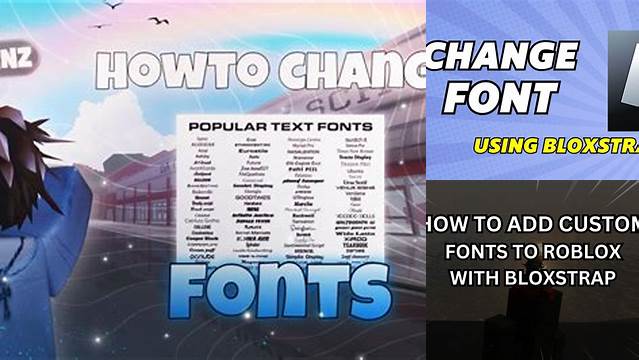
Change Roblox Fonts With Bloxstrap: A Complete Guide
Hey, Roblox enthusiasts! Ever wished you could spice up your Roblox experience with some custom fonts? Well, guess what? It's totally doable, and it's easier than you might think, thanks to a nifty tool called Bloxstrap. Bloxstrap isn't just about fonts; it's a whole suite of enhancements for your Roblox client. But let's be real, the font customization is a major draw for a lot of us. In this guide, we'll walk through how to change Roblox fonts with Bloxstrap, step by step, so you can get your game looking exactly how you want it. This is the ultimate guide to make your Roblox experience stand out from the crowd. Get ready to transform your game with personalized font styles! This customization tool provides a fantastic method to change the appearance of text within the game, offering a more personalized and enjoyable experience. We will explore the ins and outs of using Bloxstrap and how to select and apply fonts that best suit your preferences. This process involves understanding the Bloxstrap software, which will allow you to modify the game's interface to a great extent. We'll cover everything from downloading and installing Bloxstrap to choosing and implementing your favorite fonts. Whether you're a seasoned player looking to refresh your game's look or a newcomer eager to personalize your experience, this guide has got you covered. So, let's dive in and make your Roblox games truly your own!
Understanding Bloxstrap's Interface: Navigating the Font Settings
Now that Bloxstrap is installed, let's get familiar with its interface. When you open Bloxstrap, you'll be greeted with a user-friendly interface designed to make customization easy. The interface is generally divided into several sections, each dedicated to different aspects of Roblox modification. The most important section for our purposes is the one related to font customization. Look for settings related to "Fonts" or "UI Customization." This section allows you to select and apply different fonts to various elements within the game. You'll likely find options for changing fonts for chat messages, game interfaces, and other text elements. Usually, the interface is straightforward, with dropdown menus or text fields where you can specify the font you want to use. Bloxstrap often provides a preview feature, allowing you to see how the selected font will look in the game before applying it. This is a huge help in ensuring that you choose a font that you like. You will also have options to specify where the fonts will be applied, such as specific parts of the game UI or text elements. If you have used other customization tools before, the interface will likely feel intuitive. Bloxstrap's designers have made an effort to create an easy-to-navigate platform. Once you get used to the layout, changing the fonts in your Roblox game will become second nature. The interface is regularly updated to stay current with Roblox updates, ensuring compatibility and a smooth user experience. Make sure to explore all the different options and settings within the Bloxstrap interface. This will enable you to make full use of its capabilities. It is a great way to personalize your gaming experience beyond just changing fonts. The Bloxstrap interface is your control center for all things customization, and will enable you to make your game a true reflection of your personal style.
Selecting Your Fonts: Where to Find the Perfect Font
Applying Your Chosen Fonts: Integrating Fonts into Bloxstrap
Alright, you've got your fonts, and now it's time to put them to work in your Roblox game. This part is a breeze with Bloxstrap. Open Bloxstrap, and navigate to the font settings. This is usually found within the "UI Customization" or "Fonts" section. You will typically see options to select different fonts for various parts of the game. To apply your custom font, you'll usually need to specify the location of the font file. Click the option to browse for the font files and select the .ttf or .otf file you downloaded earlier. Bloxstrap should be able to automatically recognize the font. Some Bloxstrap versions allow you to directly upload font files, while others may require you to point to the system font folders. Make sure you choose the correct one. After selecting your font, you might need to specify where you want it applied. This could include chat bubbles, menus, or other UI elements. Bloxstrap often provides a preview feature, allowing you to see how the font will look in the game before you apply it. Take advantage of this feature to ensure that your font looks good and is readable. Once you've selected your fonts and confirmed your settings, apply the changes. Then, launch your Roblox game through Bloxstrap. The fonts you selected should now be visible in the game, replacing the default fonts. If the fonts don't appear immediately, try restarting your Roblox client or the Bloxstrap application. Sometimes, a simple restart is all it takes. If you're having trouble, double-check that you correctly specified the font file and that it is located in the correct directory. By carefully applying your fonts, you ensure that the changes are integrated seamlessly into the game's interface. Enjoy the new look of your game, and don't be afraid to experiment with different fonts to achieve the perfect aesthetic. Customizing fonts is a great way to make your game feel like your own!
Troubleshooting Font Issues: Resolving Font Display Problems
So, you've installed Bloxstrap, selected your fonts, and applied them, but the game isn't looking quite right? Don't worry, it's a common issue, and there are a few things you can check to get things working smoothly. First, make sure you've selected the correct font file. Double-check that you've chosen the .ttf or .otf file you downloaded and that it's the right font. Also, verify that you selected the correct font for the appropriate UI element. Sometimes, the wrong selection can prevent the font from appearing correctly. Another common problem is incorrect font paths. Make sure Bloxstrap is pointing to the correct directory where your font files are located. If the path is incorrect, Bloxstrap won't be able to find the font. Restarting the Roblox client and Bloxstrap is also a good first step. This can often resolve minor glitches that might be preventing the fonts from displaying properly. If you're still having trouble, check for any conflicting settings or other Roblox modifications that could be interfering with the font display. Sometimes, other plugins or modifications can conflict with Bloxstrap. Ensure that your Roblox client is up to date. Outdated versions can sometimes have compatibility issues with Bloxstrap. Make sure the Bloxstrap version is also current. Consider reinstalling Bloxstrap to resolve any potential corruption or installation issues. Also, clear the Roblox cache to ensure that old font data doesn't interfere with the new fonts. Check for any error messages in the Bloxstrap interface. These messages can sometimes provide valuable clues about what's going wrong. If you've tried all these steps and still can't get the fonts to work, you might want to seek help from the Bloxstrap community or forums. The community can provide additional troubleshooting tips. With some patience and troubleshooting, you can overcome any font display problems and get your Roblox game looking just the way you want it.
Advanced Customization: Beyond Basic Font Changes
Once you're comfortable with basic font changes, you can explore more advanced customization options with Bloxstrap. Beyond changing the fonts, Bloxstrap offers a range of features that let you personalize your Roblox experience even further. You can often modify the UI elements such as the game's interface, menu colors, and other visual aspects. This allows you to create a unique and cohesive look for your game. Bloxstrap typically lets you customize the game's sound effects and even add custom sounds. This adds another layer of personalization to your experience. Consider exploring advanced settings related to graphics and performance. You can often adjust settings to improve the game's visual quality and performance. Bloxstrap also supports various scripting functionalities, enabling you to modify the game's behavior and create custom features. Some advanced users create their own UI designs. These designs are tailored to their gaming preferences. Bloxstrap's flexibility allows users to integrate various modifications. These modifications range from simple visual tweaks to more complex game enhancements. If you're a more advanced user, consider creating and sharing your custom settings and configurations with the community. This can help other users and contribute to a more vibrant and creative environment. Explore the Bloxstrap documentation. This documentation contains in-depth explanations of the application's advanced features. Remember to always back up your Roblox settings. This will allow you to revert to a previous state if any issues arise. Bloxstrap's advanced customization features offer endless possibilities. By exploring these features, you can turn your Roblox game into a truly unique and personalized experience.
Font Compatibility: Choosing the Right Fonts for Roblox
When selecting fonts for your Roblox experience, it's essential to consider compatibility to ensure a smooth and enjoyable gaming experience. Not all fonts work perfectly in Roblox. Some fonts might cause display issues or look distorted, depending on their design and the game's rendering engine. First, it's important to choose fonts that are designed for digital use. Fonts created for print may not render well on-screen. Fonts with simple, clear designs usually work best. They're easier to read and less likely to cause display problems. Stay away from complex or overly ornate fonts, as these can create readability issues, especially in the game's interface. Consider the size and weight of the font. Thin, light fonts may be difficult to read, especially in smaller text sizes. Look for fonts that have various weights and styles, so you can easily adapt them to different UI elements. Make sure that your chosen font supports all the characters you need for the game. Some fonts might not have support for special characters, such as numbers or punctuation marks. When selecting a font, test it within the Roblox environment before fully committing to its use. This will allow you to see how the font appears in various UI elements. When testing a font, pay close attention to the font's legibility. Ensure that you can easily read the text, even in fast-paced gameplay situations. Avoid using too many different fonts in the game. This can create a cluttered and confusing interface. Keep the visual design clean and organized. Test the font on various devices and screen resolutions. This will ensure that it looks good on different displays. Consider the game's theme and style. Choose fonts that align with the overall aesthetic of your game. By carefully considering font compatibility, you'll ensure that your customized Roblox experience is both visually appealing and user-friendly.
Ensuring Readability: Picking Fonts That Are Easy to Read
When customizing fonts in Roblox, the primary goal is to improve the visual experience without sacrificing readability. Choosing fonts that are easy to read is crucial for a positive gameplay experience. Prioritize fonts with clear and distinct letterforms. Avoid fonts with overly stylized or decorative elements that can obscure the text. Sans-serif fonts, such as Arial or Open Sans, are often a good choice for game interfaces. These fonts are usually clean and easy to read. Look for fonts with a generous x-height, which is the height of the lowercase letters. A larger x-height makes letters more distinguishable, especially in smaller font sizes. Choose fonts that offer good contrast against the background. This will make the text easier to read, regardless of the visual elements of the game. Consider using different font weights for different parts of the UI. Bold fonts can be effective for headings or important information, while regular fonts are good for body text. Test your selected fonts in a variety of in-game settings. This will allow you to check their readability in different lighting conditions and screen sizes. Pay attention to the kerning, which is the spacing between letters. Ensure the letters aren't too close together or too far apart. These spacing issues can make text difficult to read. Avoid using fonts that are too condensed or stretched, as these can distort the letterforms and reduce readability. Experiment with font sizes to find the right balance between readability and visual appeal. Make sure that the text is large enough to be easily read on different devices. When choosing your font, consider its overall style and how it fits with the game's theme. Make sure that the font enhances the overall experience, and does not detract from it. Regularly test your chosen fonts to ensure that they remain readable over time. Readability is key to a smooth and enjoyable gaming experience. With a careful selection of fonts, you can improve the look and feel of your game.
The Future of Roblox Customization: Trends and Innovations
The future of Roblox customization is constantly evolving. Trends and innovations are constantly shaping the gaming experience. We can expect more advanced customization options. Roblox will likely introduce more tools and features that enable users to customize their games. Artificial intelligence (AI) will likely play a larger role. AI can generate custom content. We might see more sophisticated font and UI customization tools. Roblox might incorporate more features. These features will likely allow players to express their creativity. The community will continue to play a significant role in this evolution. The community is constantly creating new and innovative customization. We will likely see new tools. These tools allow users to customize the look and feel of their games. Explore the future of Roblox customization. Stay updated on trends. Stay updated on the tools. These tools will give you more control. This will give you the ability to make unique and personalized games. You will have fun with this. By staying ahead of the curve, you can leverage the most innovative features. This will enhance your Roblox experience. The future of Roblox customization holds exciting possibilities.